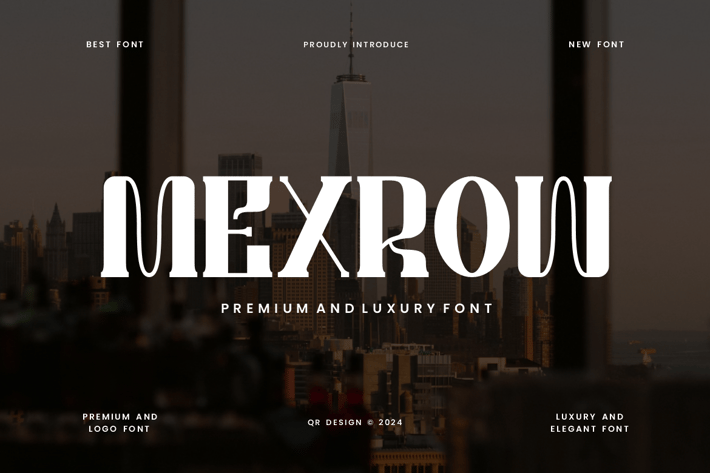
Mexrow - Premium & Luxury Font
Mexrow Font is a bold and authentic display font.
The font is suitable for any branding project like poster, logo, stylish, and many more.